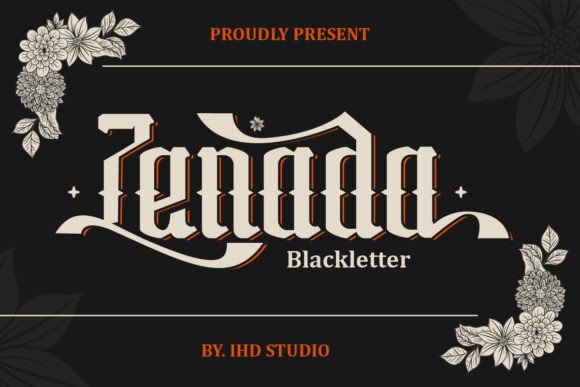
Introducing Zenada Font, the blackletter font that will take your designs to the next level. Created by IHD.STD, this font is a true masterpiece of style and elegance. Its intricate and ornate design features sharp and angular lines that are sure to catch the eye and make a statement.
Zenada Font is the perfect addition to any project, whether you're creating a vintage design or a modern project with an edge. This stunning font adds a touch of sophistication and power that is unmatched by any other font in its class. With its unique design, Zenada Font is sure to stand out and capture the attention of your audience.
But Zenada Font isn't just beautiful, it's also highly functional. This font is PUA encoded which means you can access all glyphs and swashes effortlessly. This feature allows you to easily create unique and customized designs that are sure to impress.
Zenada Font is more than just a font, it's a statement. It's a way to elevate your designs and bring them to life in ways you never thought possible. So why settle for a mediocre font when you can have a masterpiece? Download Zenada Font today and experience the power of true style and elegance.